Valentine's Day is more than candy and flowers—it's a playground for designers! If you're making a cute card, getting a product ready for the season, or putting together some romantic stuff for social media, picking the right font is super important to set the mood. When it comes to romance, script fonts totally steal the show. Their swirls and handwritten style just scream (or whisper) love. One thing, though: Make sure you grab a commercial license if you plan to use your chosen font for anything other than personal projects.
1. Amastery Script
The Amastery Font Duo is a cool set with two fonts that work really well together: * Amastery Script * Amastery Hand These fonts are smooth and easy to read. Amastery is a good choice for anything from websites to printed stuff. As a bonus, you also get a fonts with some neat icons and symbols!
2. Lovelyn Script
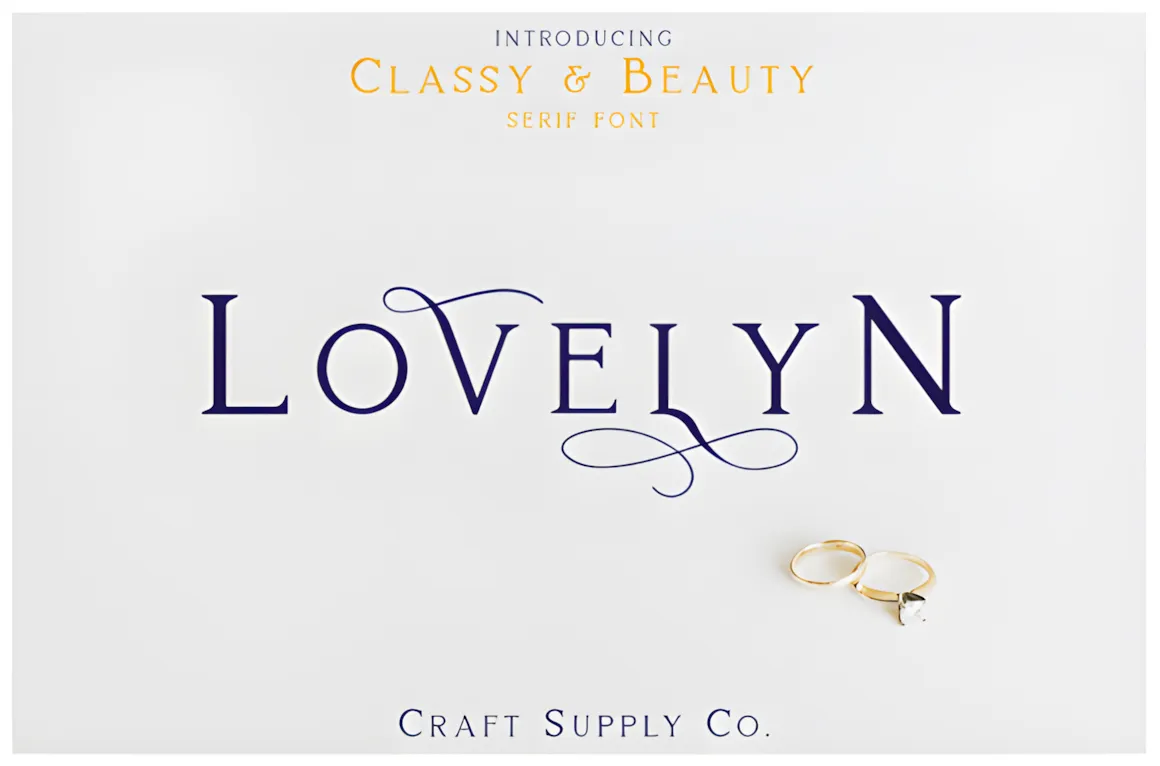
Lovelyn is a serif font that's both pretty and classy! It gives you lots of choices because it's so versatile and has different character options. It's a font that looks good and helps make your headlines and other projects really pop.
3. Heartwell Typeface
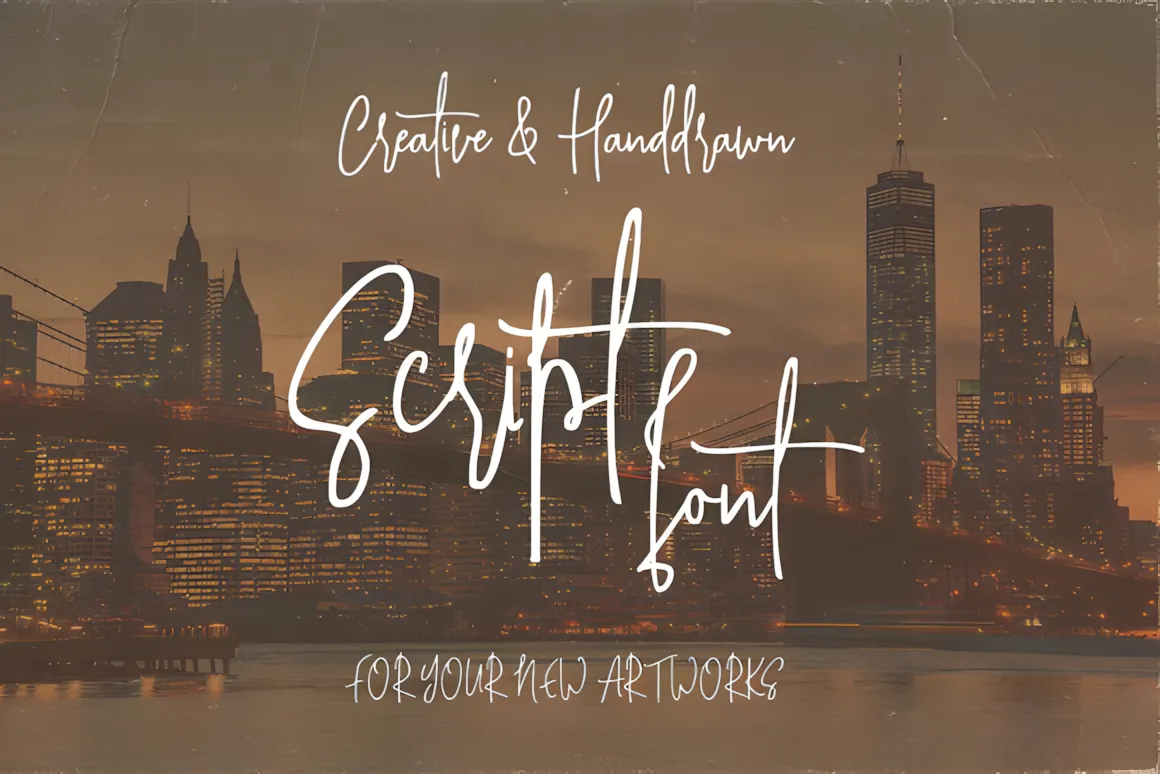
Heartwell's got this awesome, groovy baseline that just makes you wanna dance. Plus, it's got that cool, handwritten vibe that's just right for anything you're working on right now.
4. Christmas Amellia Font
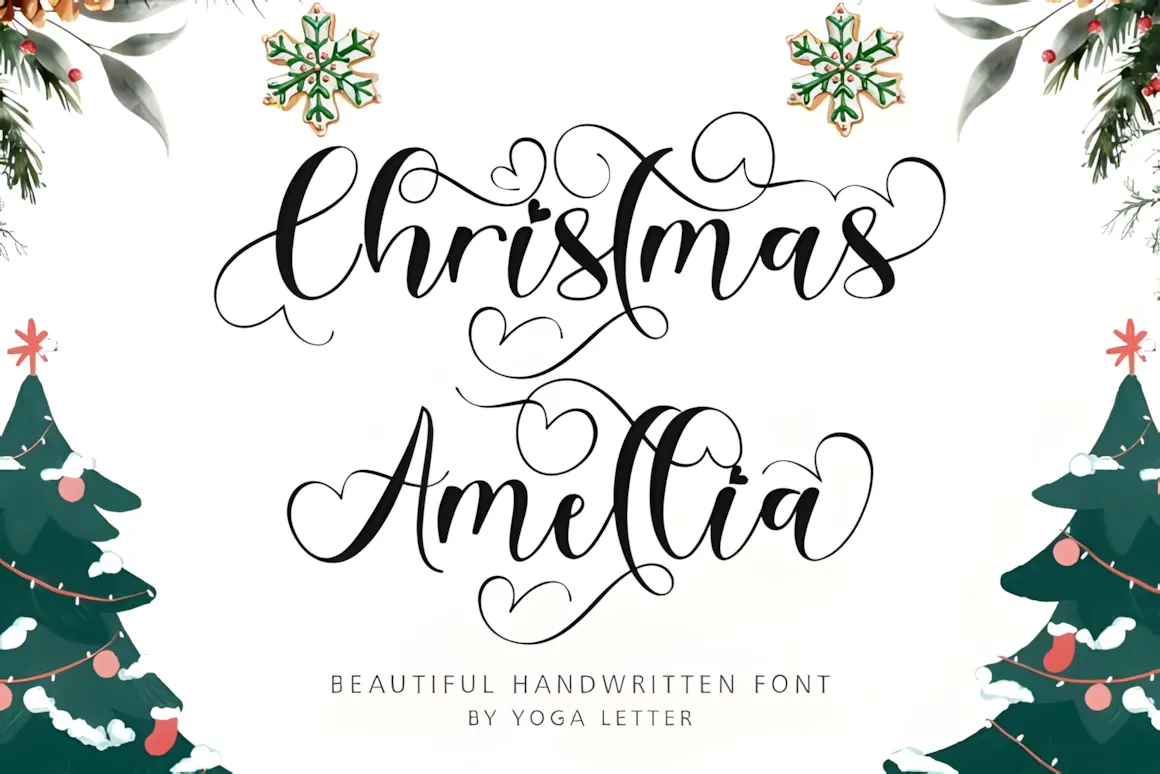
Christmas Amellia is a cute, handwritten font that I think you'll love! It has all the letters (big and small), plus cool ligatures, numbers, punctuation, and it supports many different languages. It even has some swirly extras! It would look fab on anything from Christmas cards and wedding invites to Valentine's stuff and photography projects.
5. Valencia Font
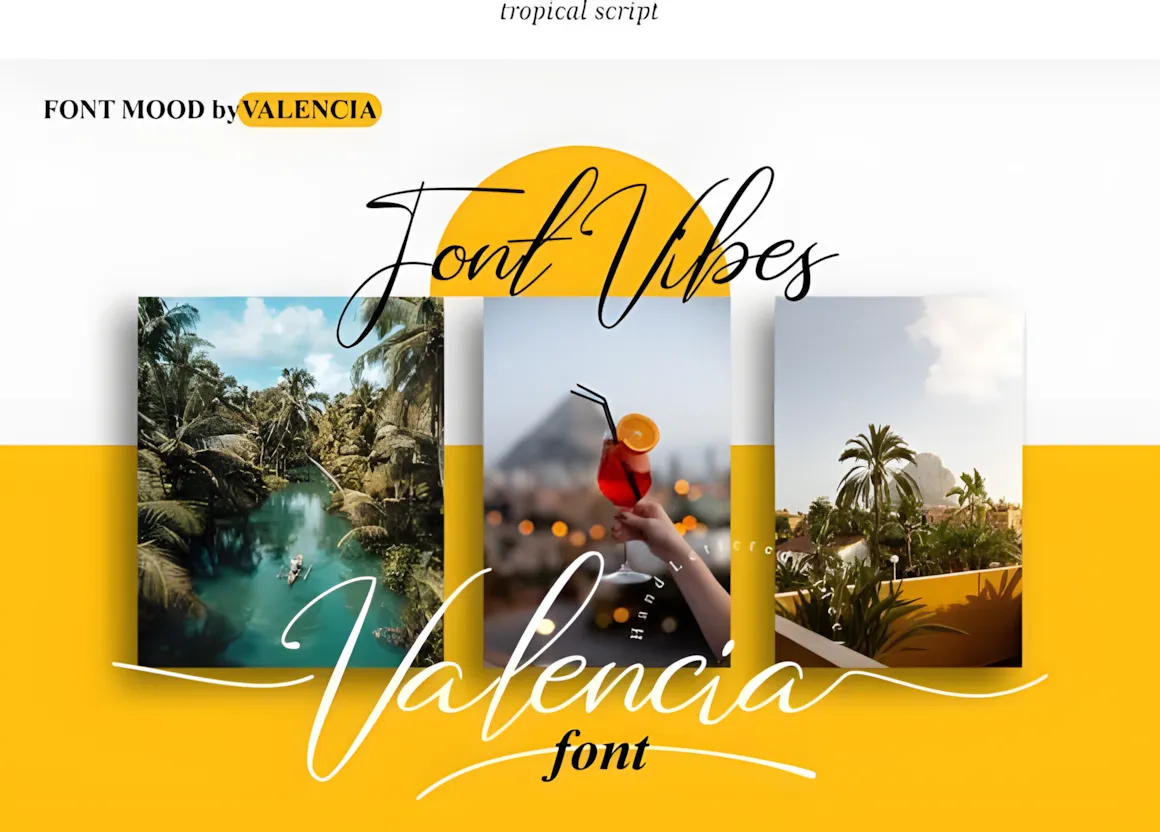
The Valencian is a cool handwritten font that has its own unique look. It's great for designs where you want to add a personal touch. Think wedding invites, thank you notes, or logos—it fits right in!
6. Babyface Font
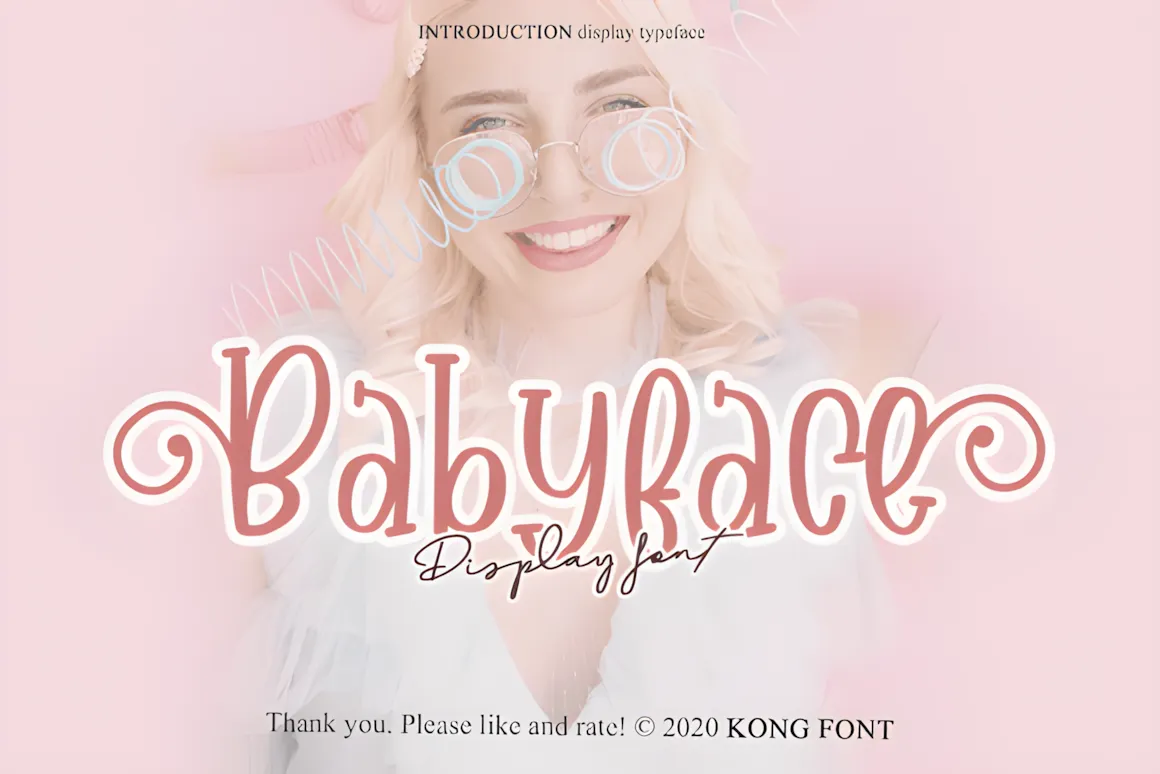
Babyface is a cool, handwritten font that's fun and fresh! Crafters and designers will find it super useful. It works well with programs like Photoshop and Silhouette Studio. If you're looking to add a playful touch to any creative idea, this is for you!
7. Karina Font
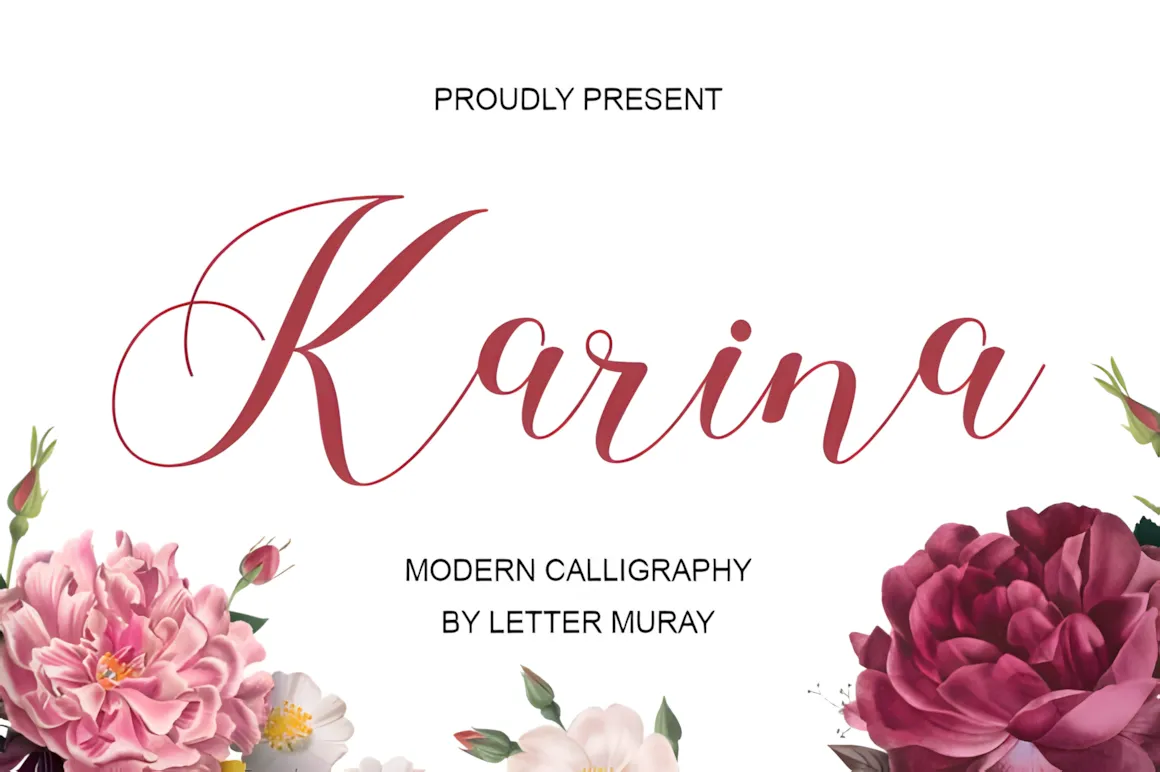
Karina is a cool, handwritten font that's made to be a go-to choice. It could really help make your creative stuff even better!
8. Katterine Rose Font
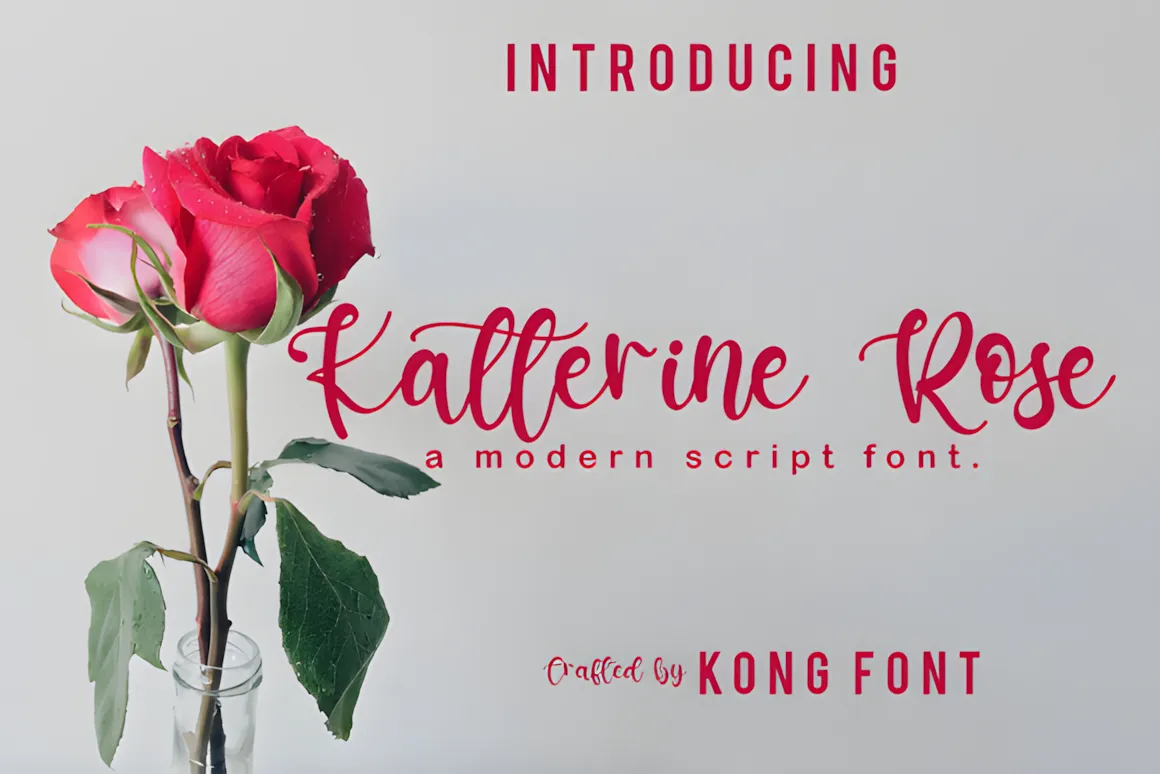
Katterine Rose is a cool, handwritten font that's both modern and fun! Crafters and designers will find it super useful. It works wonders on product packaging, branding stuff, magazine covers, social media posts, wedding invites, or really anytime you want to add some words to a background.
9. Elisabeth Font
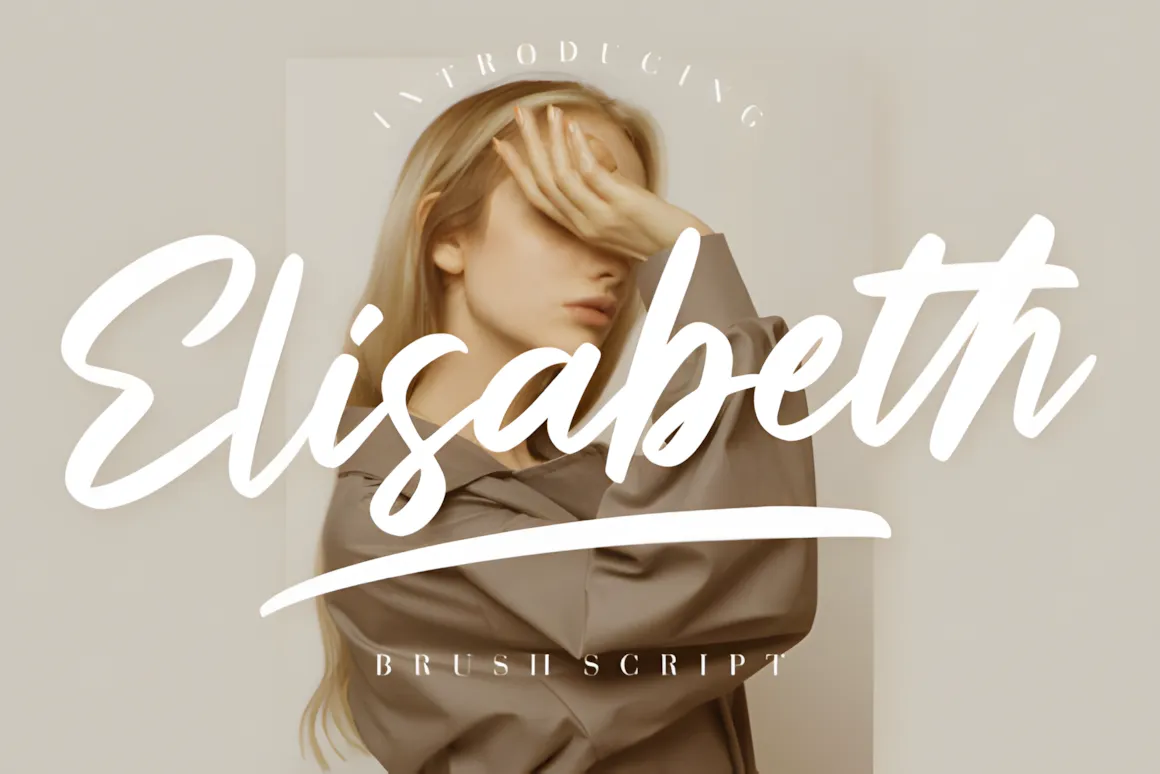
Elisabeth is a handwritten-style font with a cool, modern feel. It's drawn from classic calligraphy, so it has a great look. It's not too skinny or too heavy – it's got a nice balance that can make your designs look even prettier.
10. Kiss Boom Font
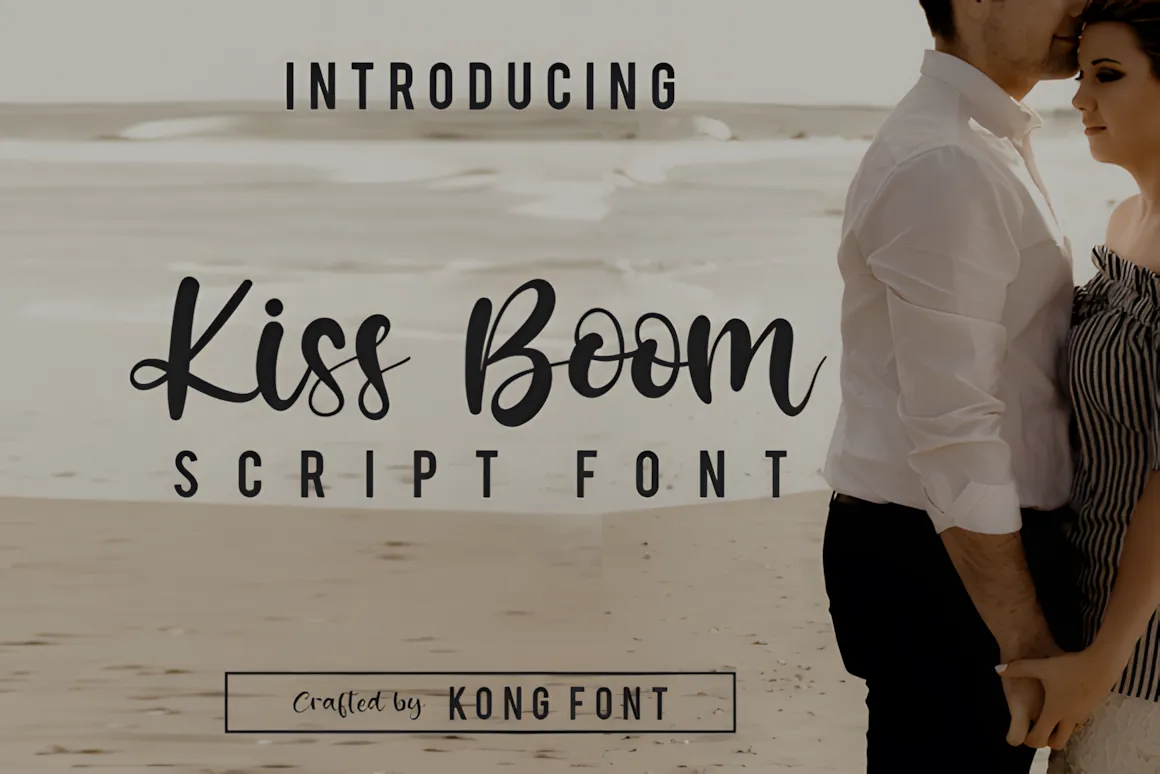
Kiss Boom is a fun, handwritten font that's great for all you crafters and designers out there! It's awesome for things like product packaging, branding, magazine covers, or even your social media posts. Plus, it’s fab for wedding invites or just adding some flair to text over any image.
11. Saturday Font
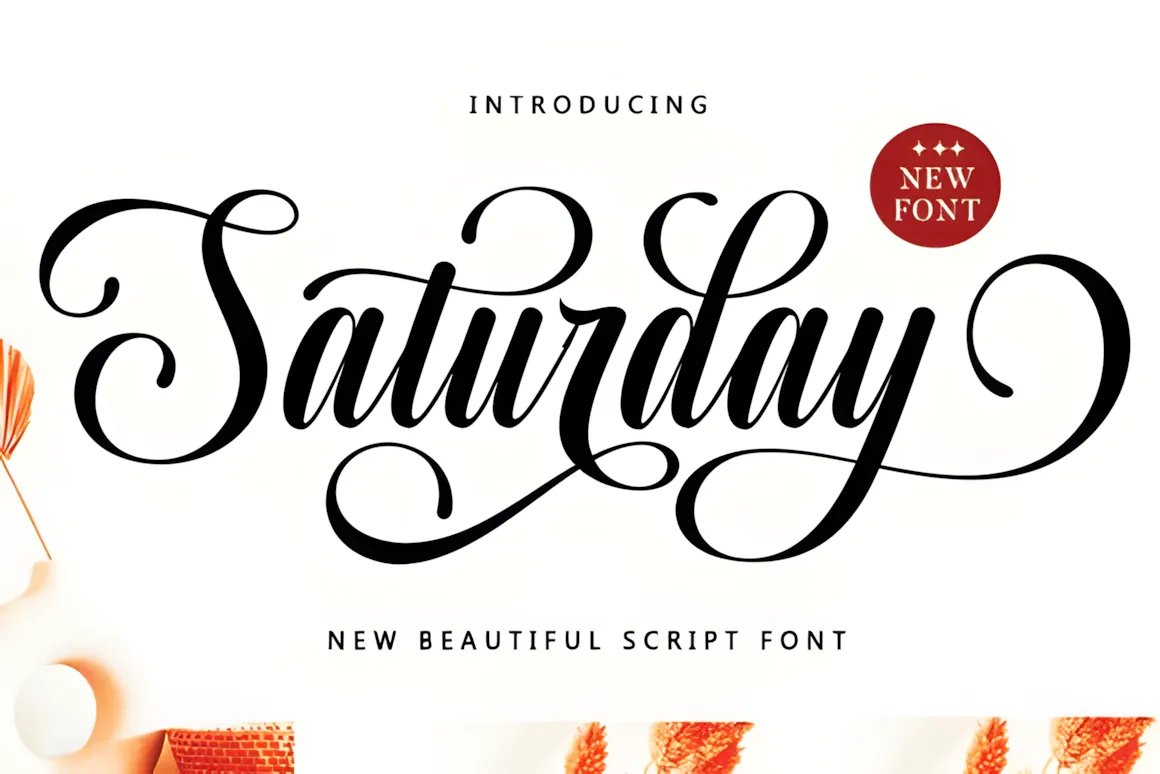
Saturday is a script font that has some cool character variations. It mixes a classic feel with a bit of today's style, and it's made with lots of care to look really good. It’s pretty, neat, and girly, plus it's easy to read because of its stylish letter joins. This classic style works great for invites, labels, menus, logos, or anything about fashion, makeup, and even books. It’s good for wedding cards, packaging, and all sorts of ads too.
12. Calligraphy Font
Calligraphy is a cute, flowing handwritten font. It's super gentle and will look great in lots of different designs. It can bring a happy and romantic feeling to whatever you're working on! It's perfect for logos, wedding stuff, greeting cards, fashion, lookbooks, marketing, and anytime you want your design to be fancy but not too formal.
13. Gastonia Script Font
Gastonia is a cool, modern font that feels super fancy! With its smooth lines and pretty curves, it's great for wedding invites, making brands look classy, dressing up product packaging, and adding a stylish touch to magazines. If you're a designer trying to make something look romantic and high-end, Gastonia is your new best friend.
14. The Purple Love Font